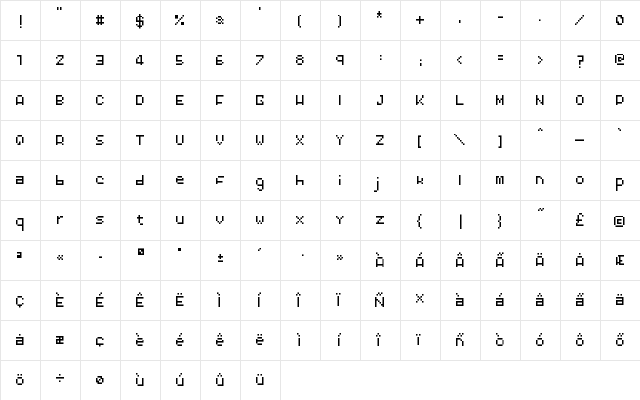
attempt Regular
| Designer | breix |
Design Context for attempt Typeface
attempt is a composed and adaptable typeface that performs quietly and consistently across a wide range of design contexts.